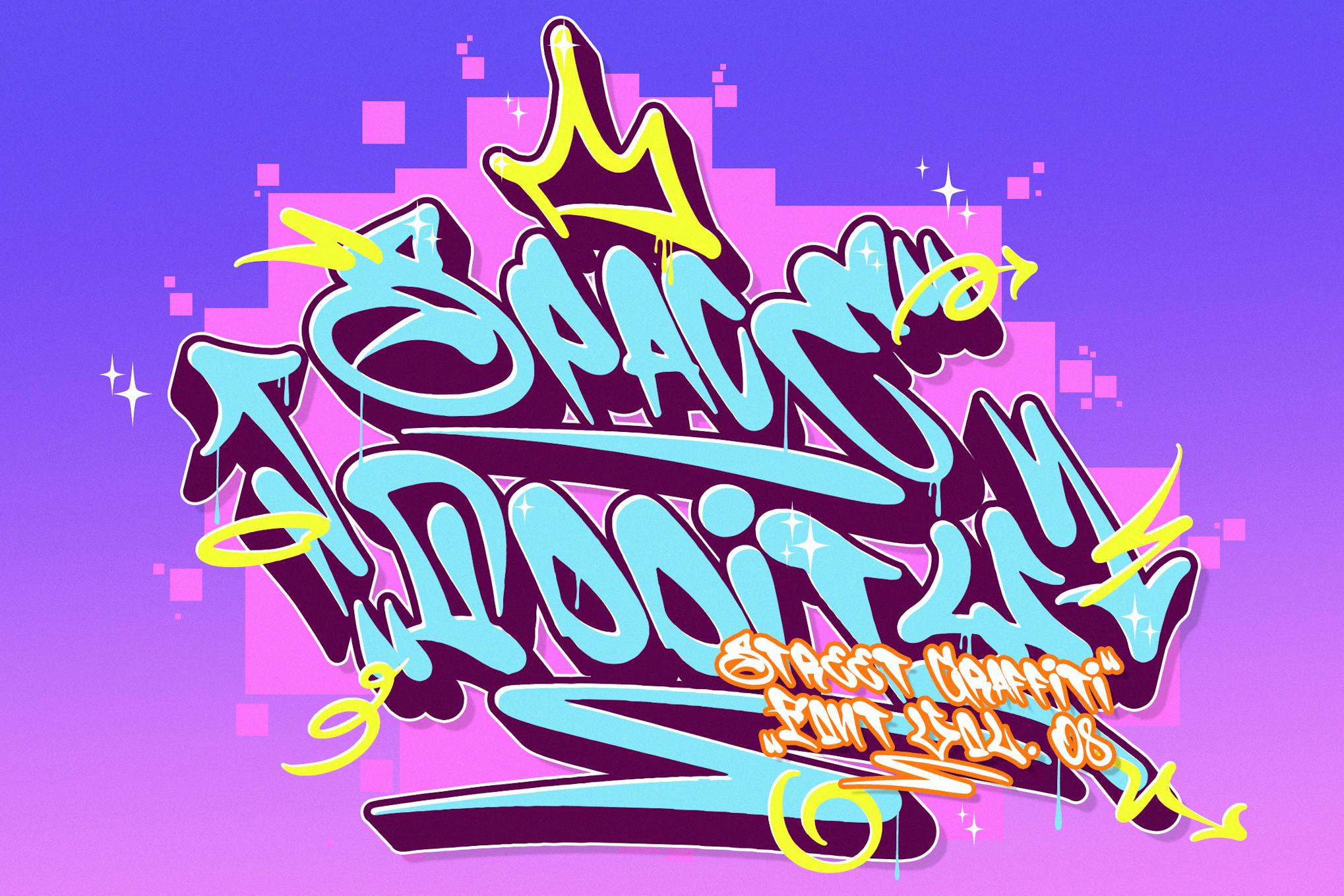
Space Oddity | Album Music Graffiti Font Vol. 8
Perfect for album covers, music posters, streetwear branding, social media graphics, and urban art projects.
The Space Oddity | Album Music Graffiti Font Vol. 8 excites designers with its edgy, hand-drawn graffiti style that channels the energy and vibe of underground music culture.
The Space Oddity | Album Music Graffiti Font Vol. 8 Free Download is a bold typeface designed to infuse your creative projects with raw street attitude and artistic flair. Its textured, brush-like strokes create a vibrant, rebellious look ideal for musicians, DJs, and urban brands seeking to make a strong visual statement. Whether you’re working on album art, posters, or social media content, Space Oddity delivers a dynamic punch.
One of the key strengths of Space Oddity | Album Music Graffiti Font Vol. 8 is its ability to combine urban grit with clear readability. Despite its complex brush textures, it remains effective for headlines and display text, ensuring your message stands out loud and clear.
In branding, Space Oddity conveys creativity, energy, and authenticity. It pairs perfectly with bold colors, graffiti-inspired layouts, and edgy visuals, helping brands connect with music lovers and youth culture.
For digital projects, this font enhances website headers, social media posts, and promotional materials with its unique graffiti style. Its energetic personality guarantees your digital presence is noticed and remembered.